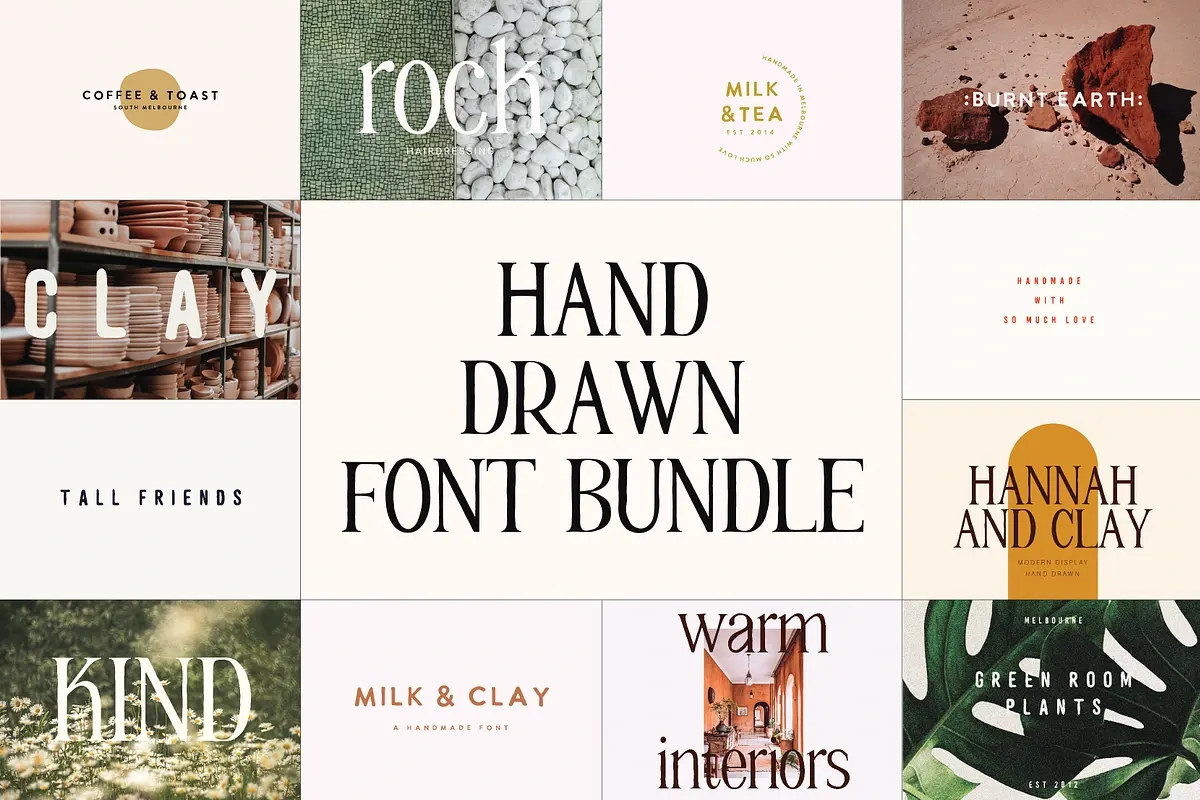
HAND DRAWN FONT BUNDLE Free Download
Hand Drawn Font Bundle Free Download is a charming collection of handcrafted typefaces designed to bring authenticity, creativity, and personality to your designs. Please note: you must purchase this font for commercial use, but you can test it through a free download. This bundle includes a variety of unique, hand-drawn fonts—ranging from playful scripts to quirky sans-serifs—making it perfect for logos, packaging, invitations, kids’ projects, and lifestyle branding.
Each font in the bundle has its own distinctive flair, allowing you to mix and match styles for eye-catching combinations that feel custom and heartfelt. Whether you're working on a DIY craft, a small business brand, or a fun social media post, Hand Drawn Font Bundle Free Download gives you the tools to create with warmth and originality. Fully compatible with Adobe Illustrator, Photoshop, and Canva. Download it today for personal use and bring your designs to life with hand-drawn charm!